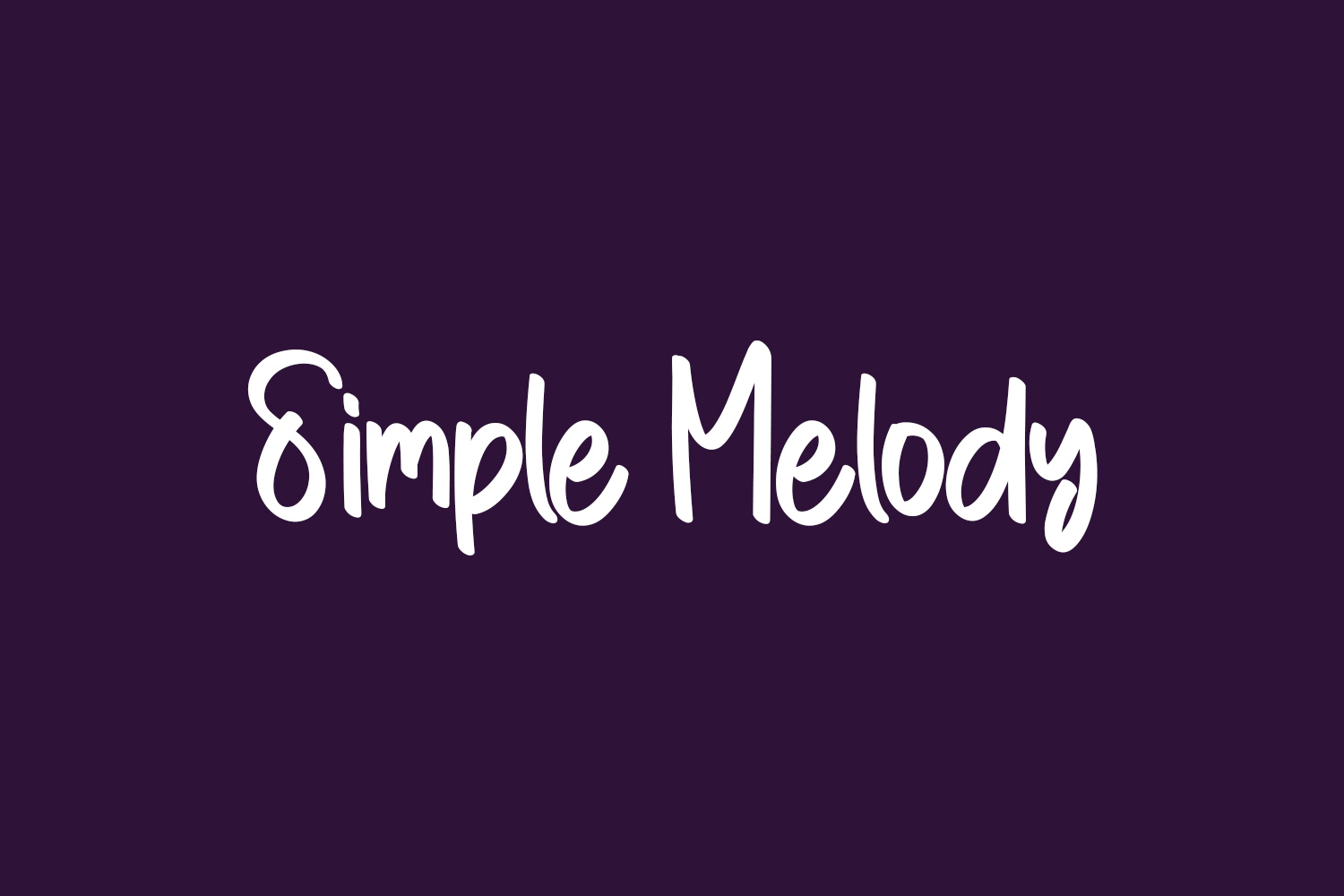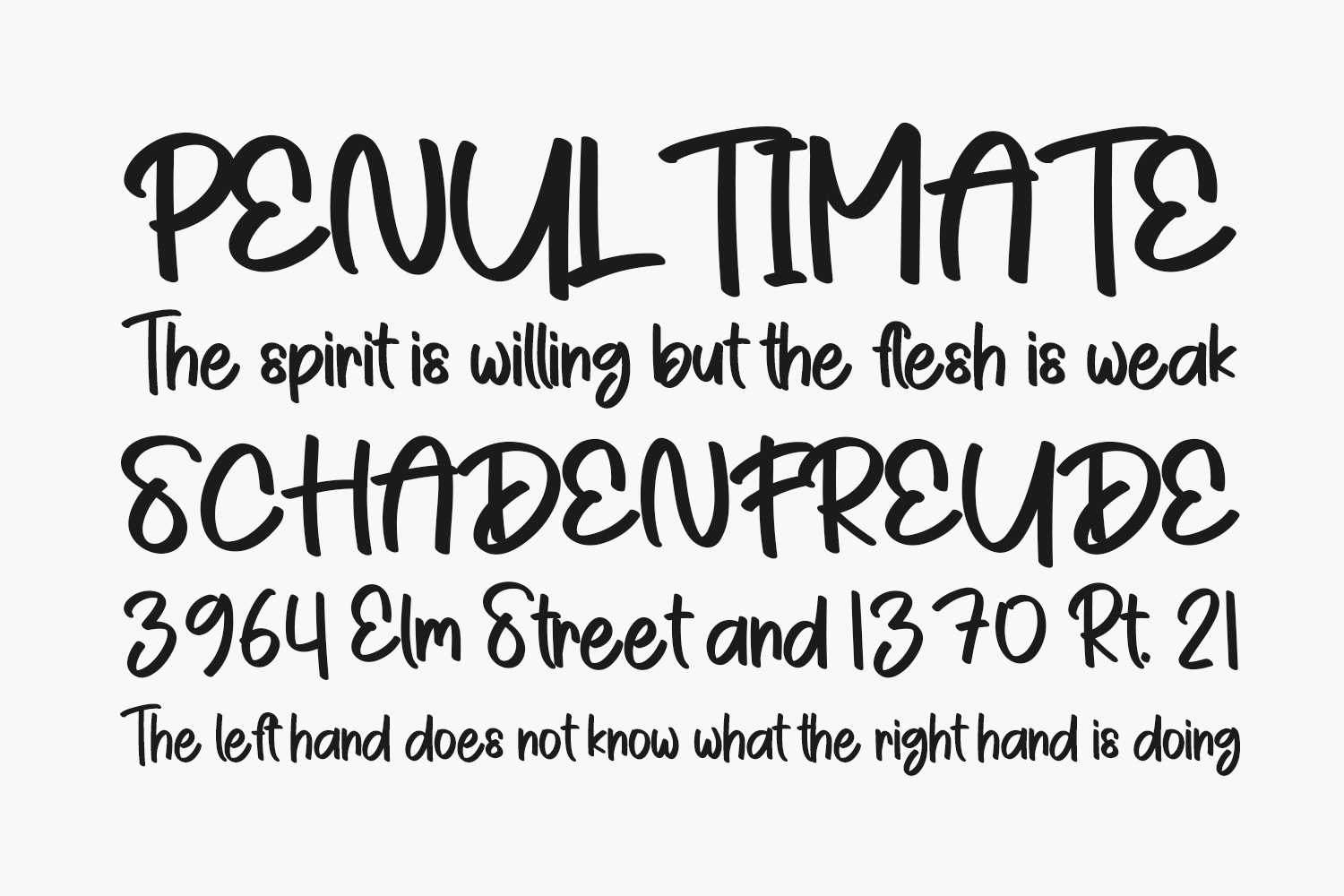
Simple Melody Free Font is a clean and casual handwritten font. Whatever the topic, this font will be a wonderful asset to your font library, as it has the potential to enhance any creation. Simple Melody Free Font was designed by Belina Studio and is free for personal use only. Please purchase the full version for commercial use.